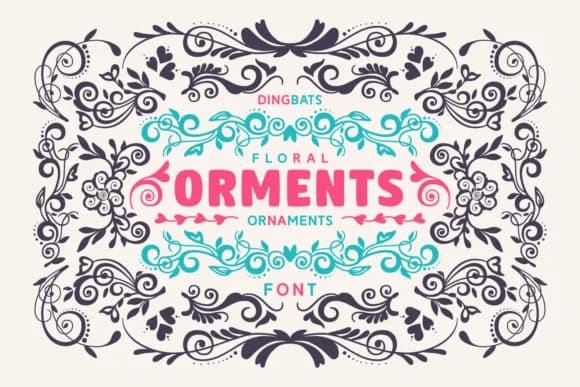
These ornamental flourishes feel gentle and romantic, perfect for designs that need a delicate touch. Orments, created by GorgezCreations, is a dingbats font brimming with botanical elements that work beautifully as decorative accents throughout your layouts.
You'll find it shines in wedding invitation suites where its ornaments frame text with graceful elegance, on Etsy product labels for botanical or handmade goods like dried flowers, herbal products, and pressed botanicals, in boutique packaging for skincare and perfume lines, and in DIY craft signs for home decor and small businesses. Scrapbooking layouts, greeting cards, wedding stationery, and invitation design all benefit tremendously from its hand-drawn quality. Each ornament carries a distinctly organic, artisanal feeling that's warmer and more approachable than rigid geometric dingbats. There's a lived-in quality to the flourishes, as if someone sketched them by hand on paper rather than plotting them on a grid, which gives your work a genuine, crafted edge.
Pair Orments with a clean sans-serif typeface like Montserrat or Poppins to let the ornaments breathe around simpler body text and headlines. This combination creates visual hierarchy without the elements competing for attention. Grab Orments on Creative Fabrica and weave botanical charm into your next design.
Orments Font is a versatile dingbats font that works for both headings and body text. Pair it with a contrasting sans-serif or serif font to add visual interest and a clear distinction between titles and body copy.